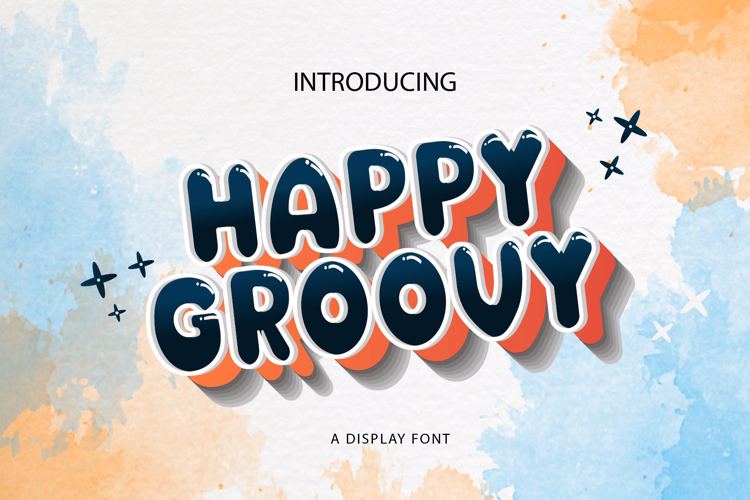
Happy Groovy Font
HAPPY GROOVY is a Groovy Display Font that contain lowercase, uppercase, symbol. With PUA encoded which means you can access all of the glyphs and swashes with ease!
This font is perfect for creating t-shirts, stickers, cover book, children book, social media post, invitation and much more!